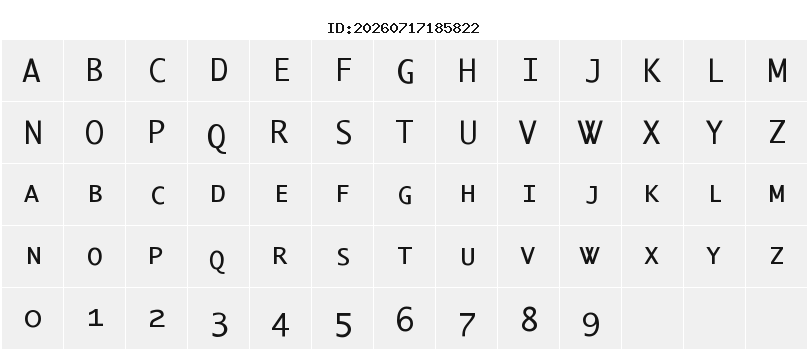
BerlinSmallCaps Preview
• Font Name: BerlinSmallCaps
• Full Font Name: BerlinSmallCaps
• Version: 1.0 2006-04-20
About BerlinSmallCaps.ttf
BerlinSmallCaps.ttf is a modern, elegant sans-serif font designed for ultimate readability and visual harmony. Perfect for branding, headlines, web design, and print materials.